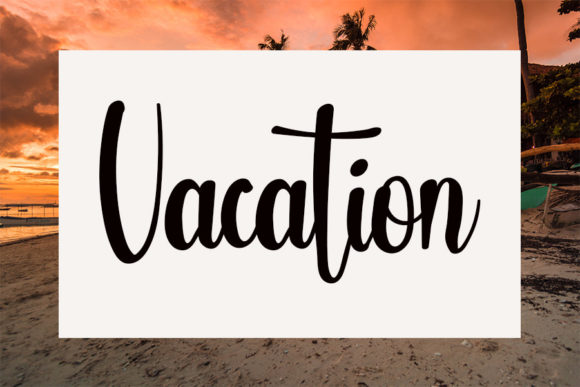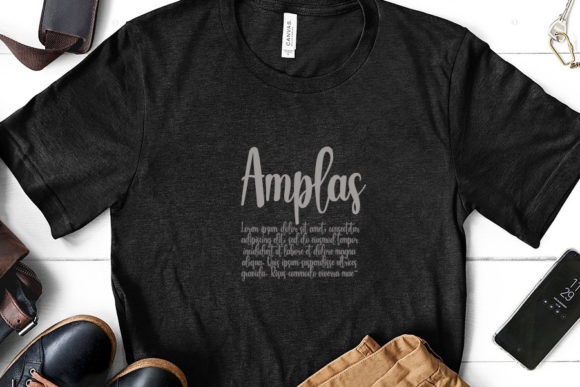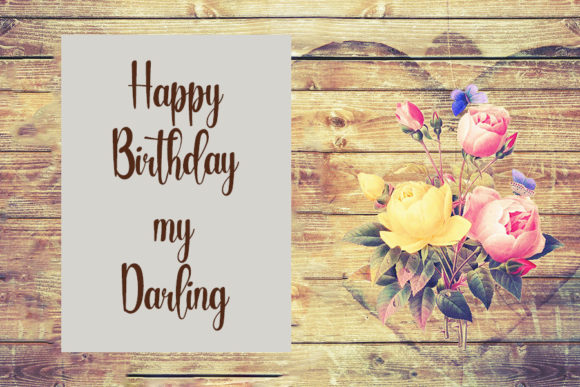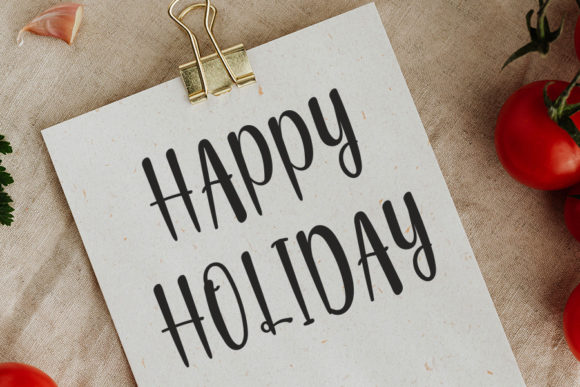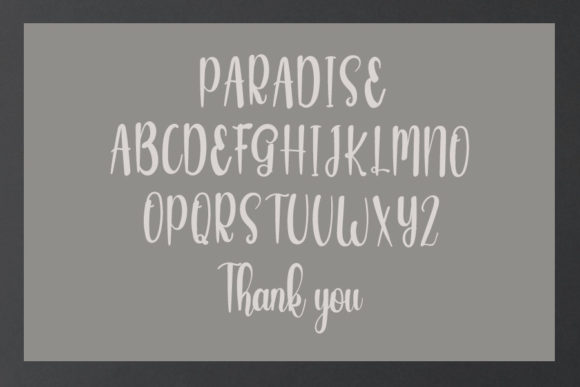
About Paradise Font
Paradise, a delightful handwritten font, has been meticulously crafted to earn its status as a beloved favorite. It artfully preserves its classy calligraphic origins while exuding a contemporary and fresh vibe, making it a versatile and appealing choice for a variety of design applications.
The friendly and approachable nature of Paradise makes it an excellent option for a range of design projects. Whether employed in personal notes, creative endeavors, or branding initiatives, Paradise’s handwritten charm imparts an authentic and inviting touch. Its careful design ensures it retains a sense of class and sophistication, making it suitable for diverse contexts where a refined yet friendly aesthetic is sought.
Paradise seamlessly fuses classic calligraphic influences with a modern twist, resulting in a harmonious blend that resonates with a broad audience. The infusion of contemporary and fresh elements into its design adds to its versatility, allowing designers to integrate it seamlessly into projects ranging from traditional to cutting-edge, all while maintaining its inherent elegance.
With Paradise, designers possess a reliable font that encapsulates a timeless quality while staying attuned to the dynamic design landscape. Its versatility makes it a valuable asset for applications such as invitations, social media graphics, or any creative project that benefits from a handwritten, friendly, and stylish touch.
In essence, Paradise is more than just a font; it’s a thoughtfully designed tool that effortlessly captures the essence of both classic and contemporary aesthetics. Its friendly handwritten style positions it as a favorite among designers seeking a flexible, classy, and fresh addition to their design toolkit. With Paradise, every project is infused with a unique blend of warmth, sophistication, and modern flair.